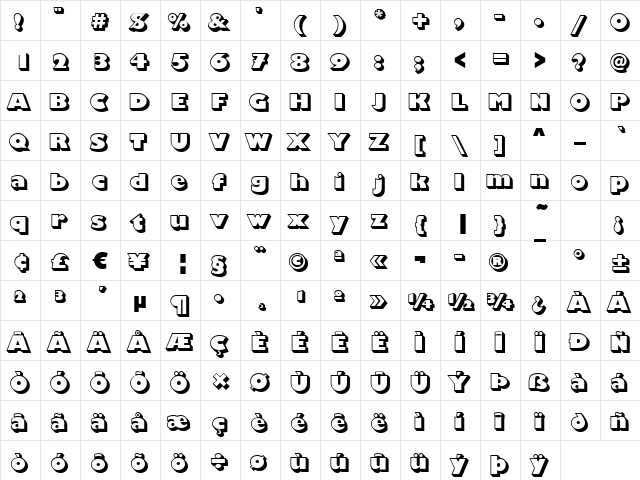
Chantilly-Display-Shaded Regular
Design Context for Chantilly-Display-Shaded Typeface
Chantilly-Display-Shaded is built around its visual character rather than neutral utility — its distinctive forms are designed to make an impression at display sizes.
Font Pairing: Pair with a clean neutral sans-serif for body copy to let Chantilly-Display-Shaded's character lead without overwhelming the composition.
Pro Tip: Treat Chantilly-Display-Shaded as the centrepiece of your typographic hierarchy. One strong heading set in a decorative face can carry an entire layout.